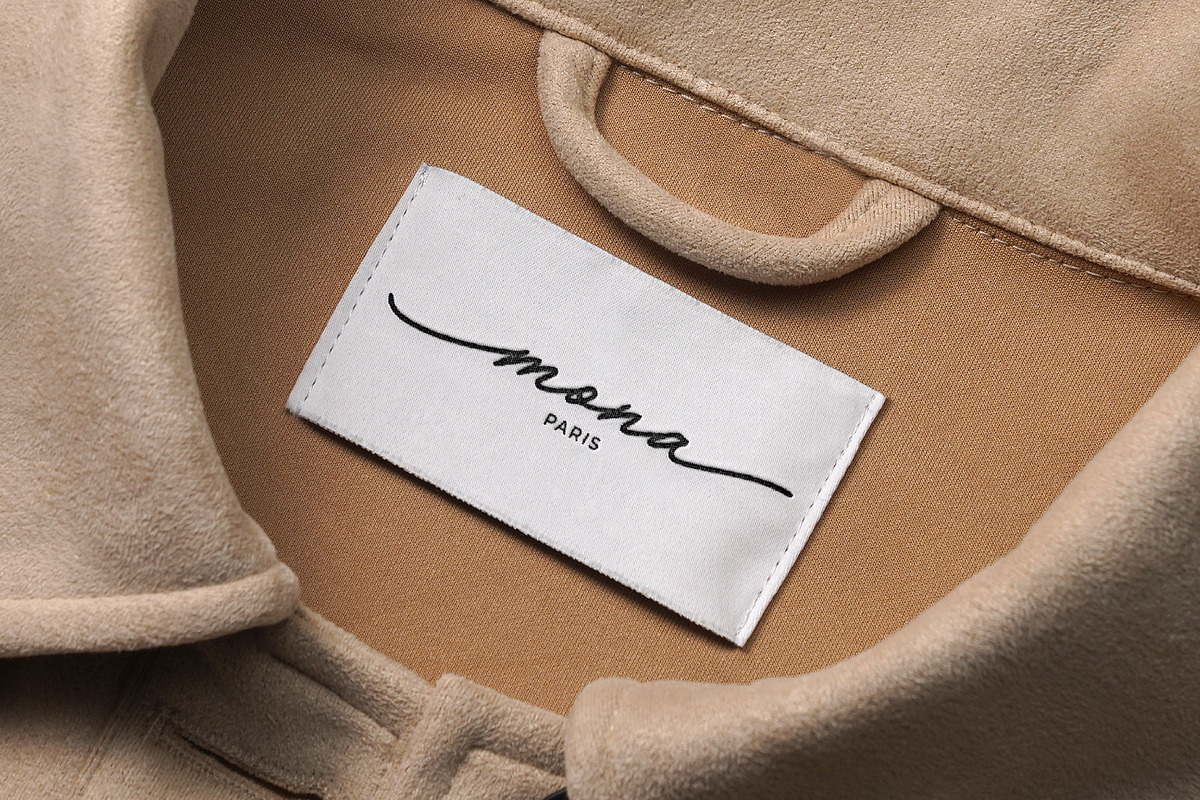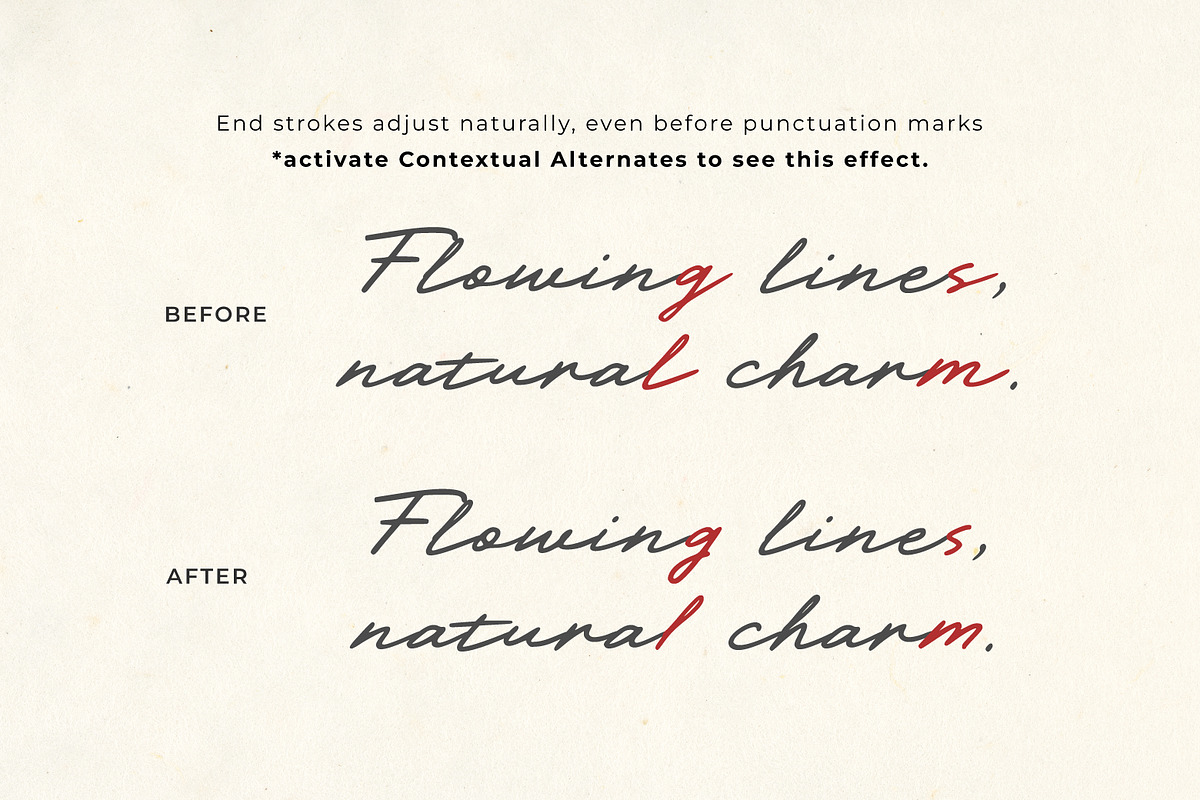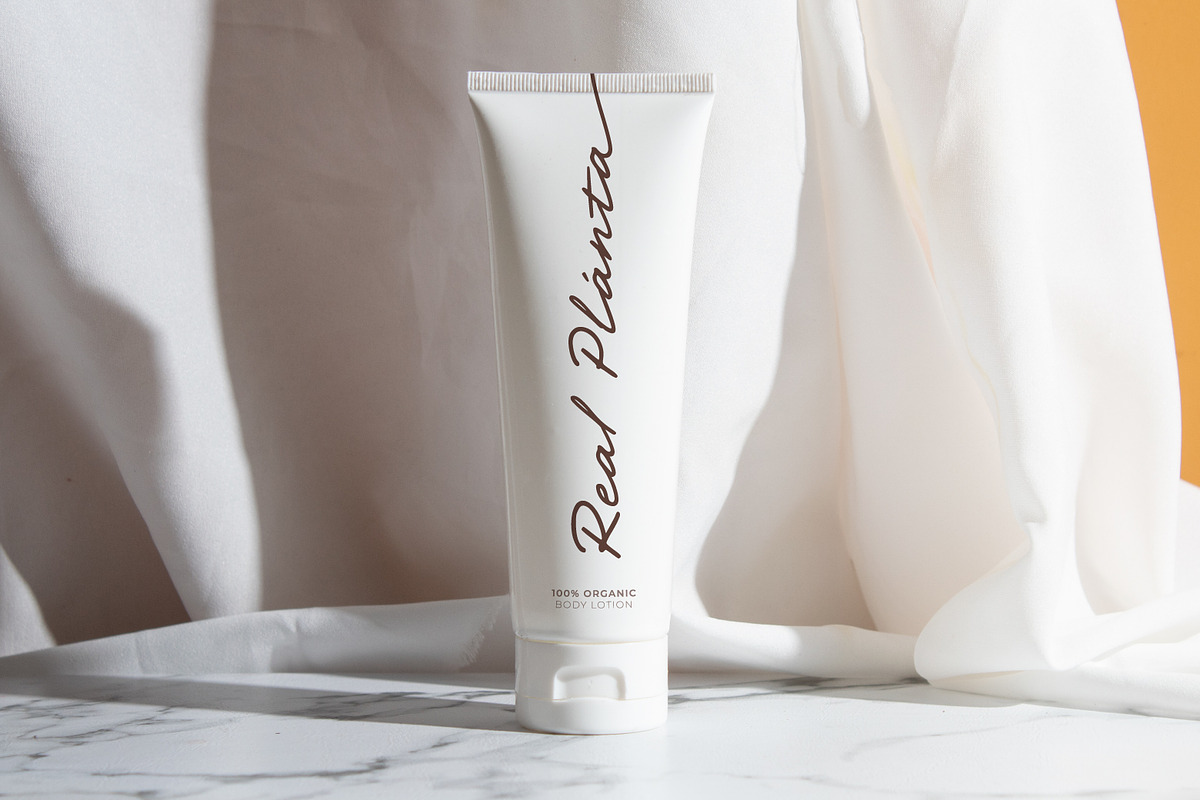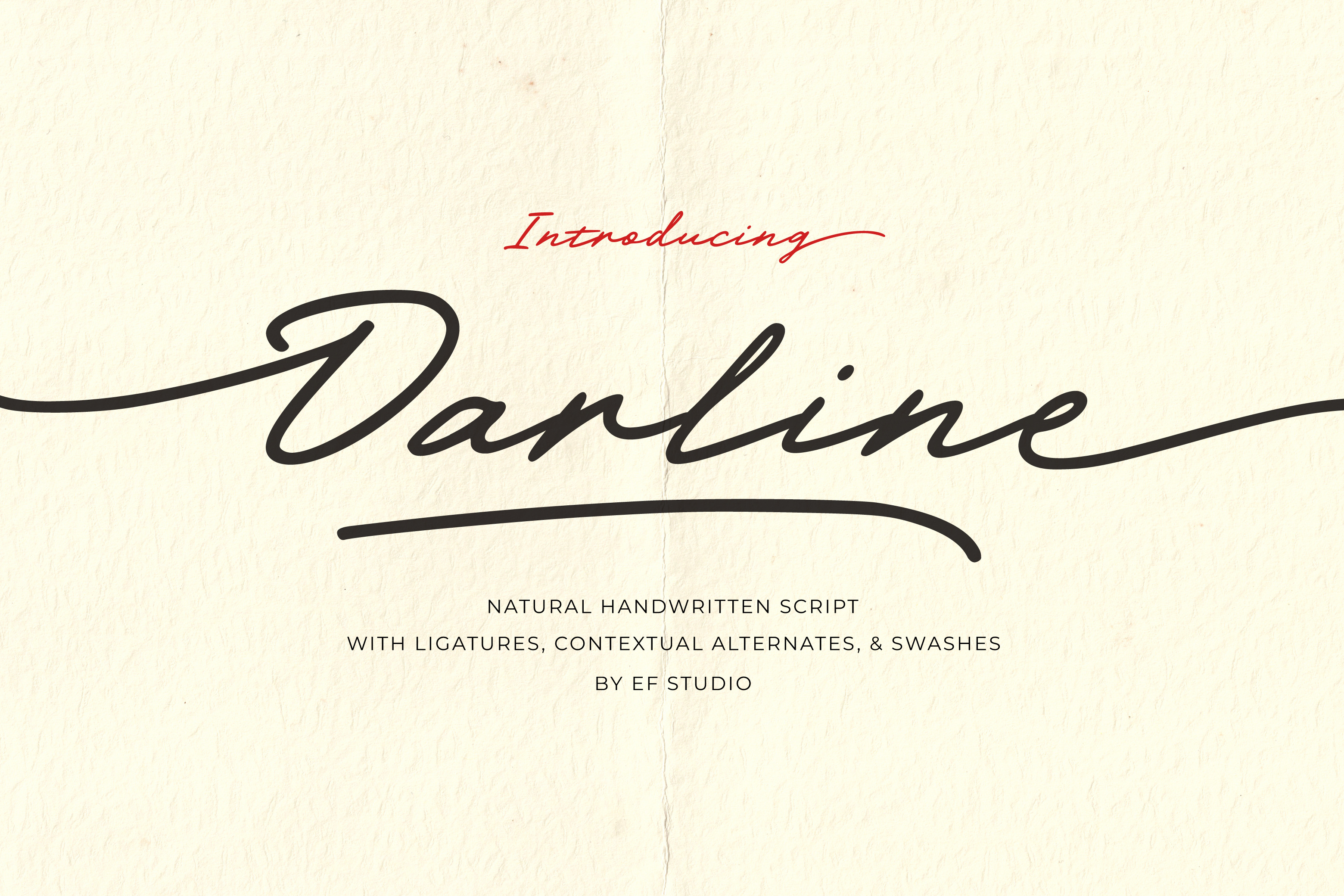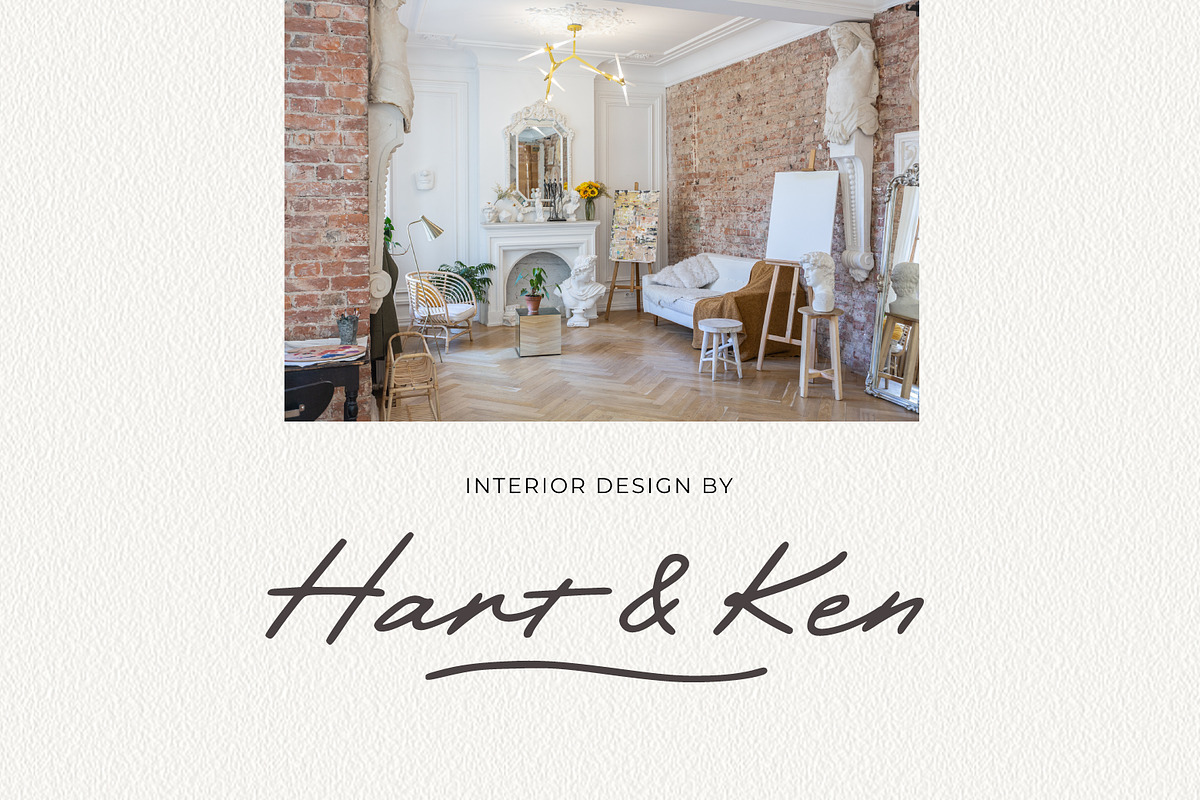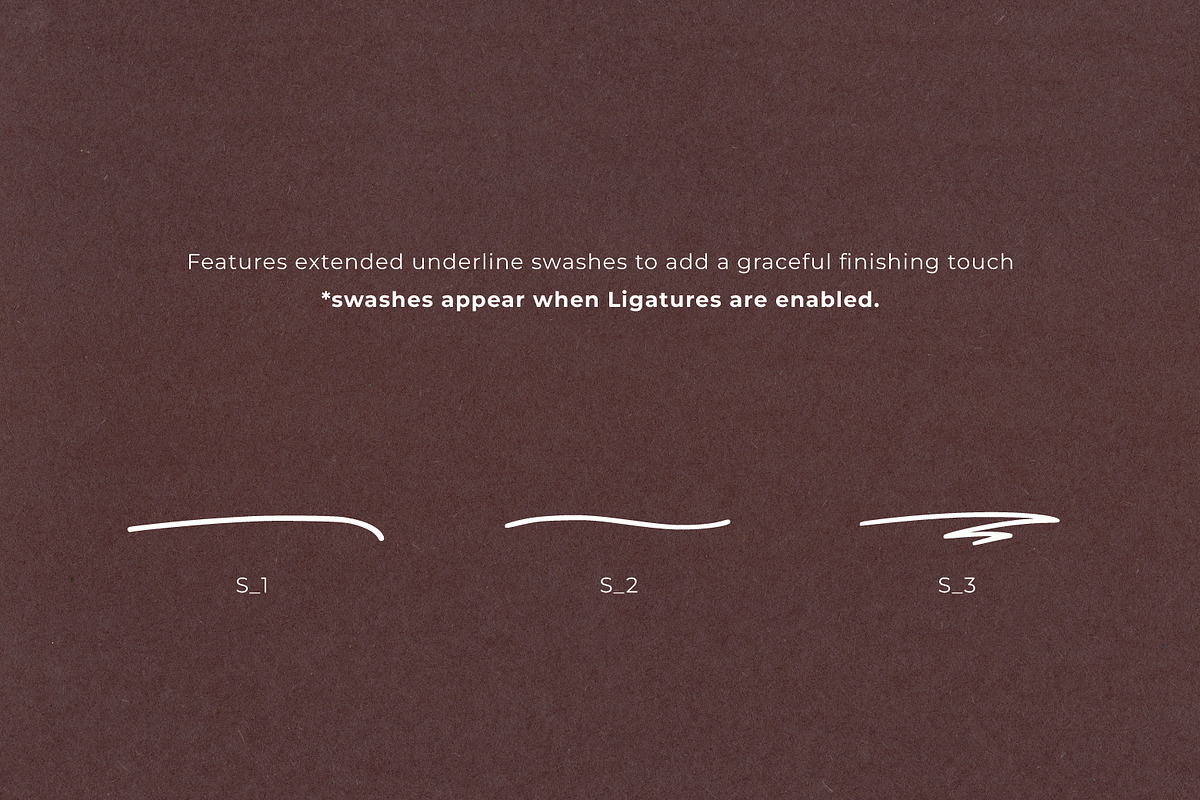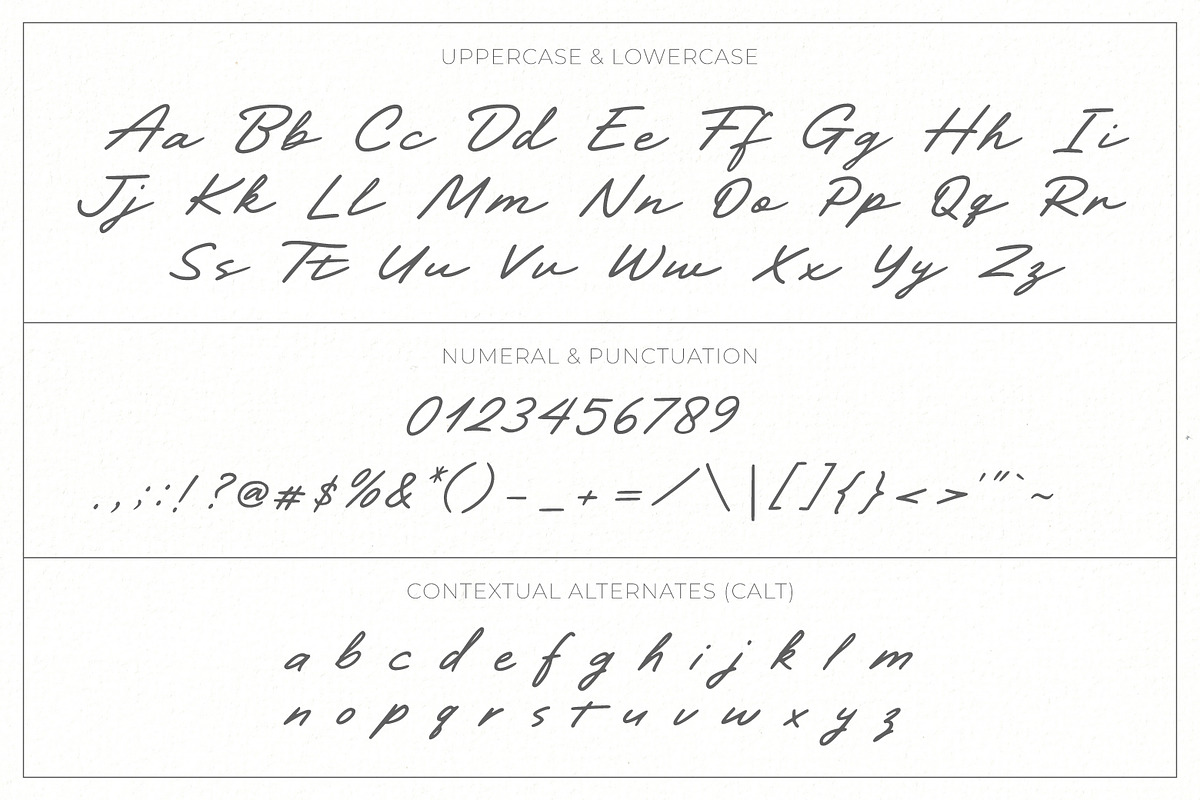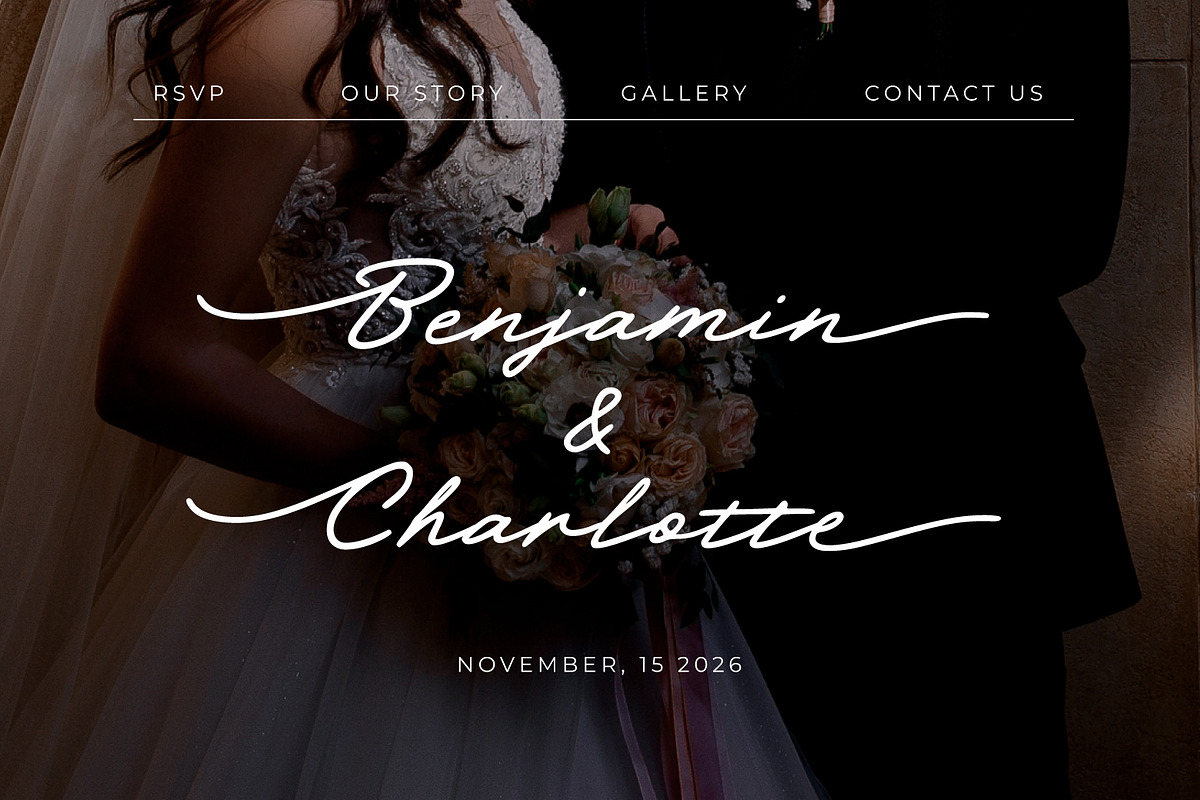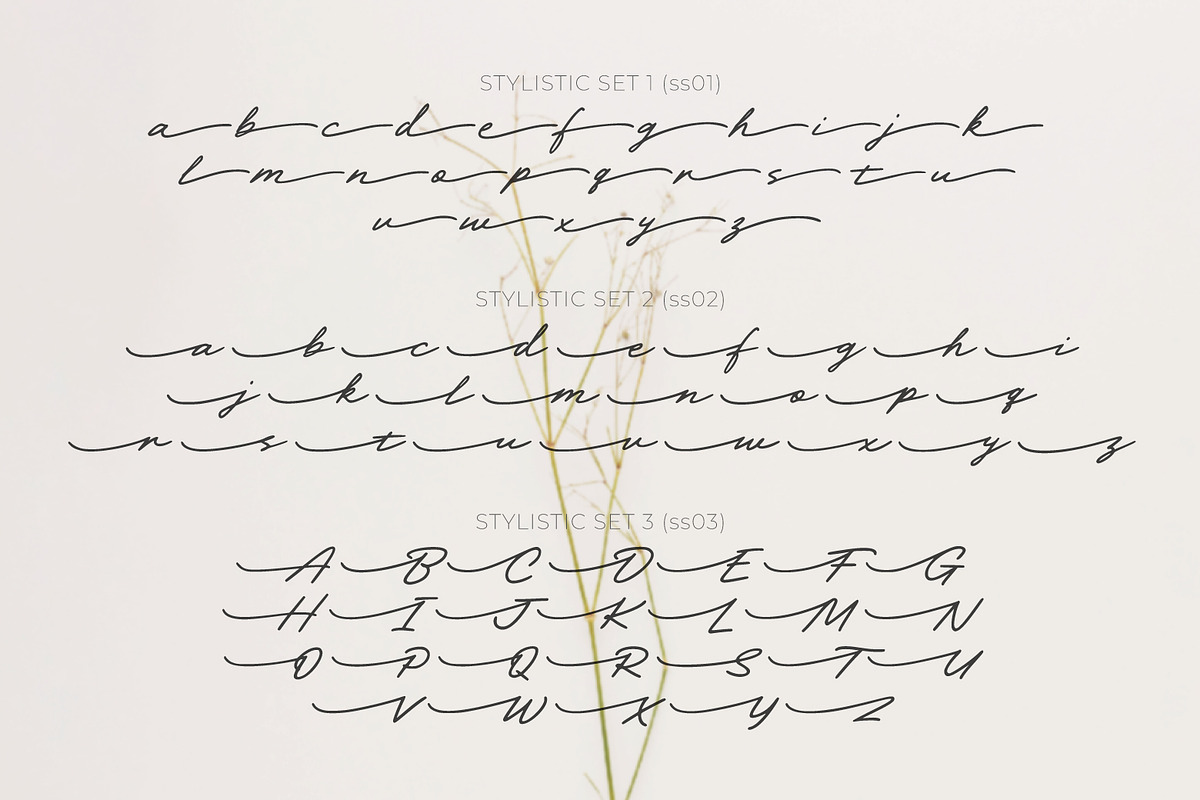
Darline Handwritten Font
Darline is a natural handwritten script that brings a warm, personal touch to your designs. With smooth curves, clean and gentle strokes, it captures the authentic feel of real handwriting, perfect for branding, wedding invitations, packaging, quotes, and any project that needs a human touch.
This font includes ligatures, contextual alternates, and swashes for a more natural flow. The contextual alternates feature makes each word look more realistic by automatically adjusting the end strokes for a smoother, handwritten look.
- Contextual alternates (natural end forms)
- Stylistic Set (swashes)